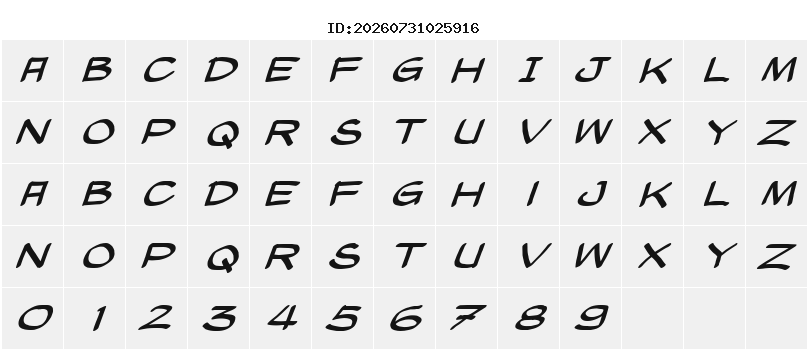
• Font Name: Lito Lapad
• Font ID: Macromedia Fontographer 4.1 Lito Lapad Italic
• Full Font Name: Lito Lapad Italic
• Version: Macromedia Fontographer 4.1 6/15/2005
• PostScript Name: LitoLapadItalic
• Character Count: 105
• Copyright: Lito Lapad © 2005 Edgar Tadeo.
About Lito Lapad.ttf
Lito Lapad.ttf is a modern, elegant sans-serif font designed for ultimate readability and visual harmony. Perfect for branding, headlines, web design, and print materials.